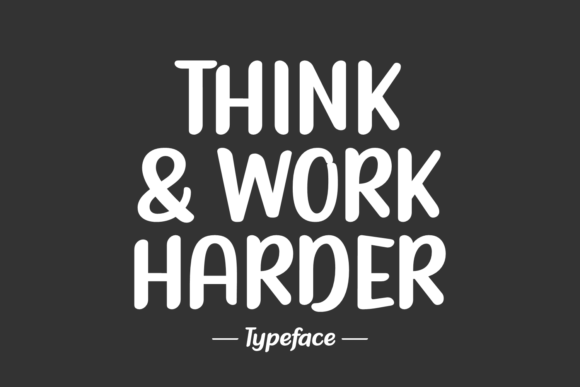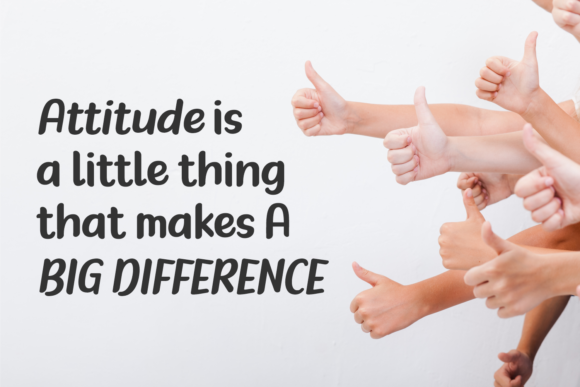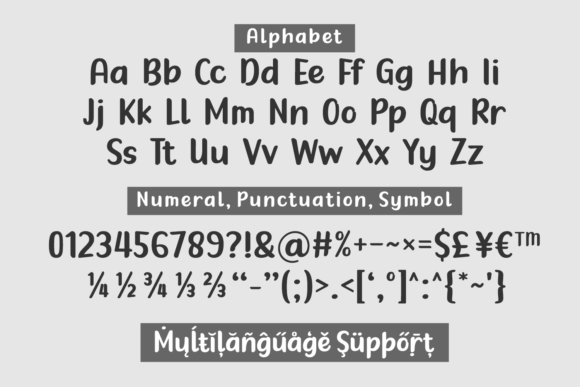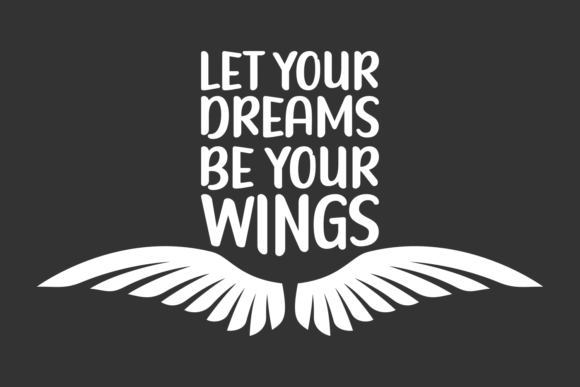
Think & Work Harder: A Display Slab Serif Font
Think & Work Harder is a display slab serif font that offers a simple yet impactful typeface. It’s an excellent choice for various design applications, including quotes, t-shirt designs, business cards, logos, branding, posters, and greeting cards.
Key Features of Think & Work Harder
- Display Design: Crafted for high-impact visual presentations.
- Slab Serif Structure: Features bold, rectangular serifs typical of slab serif fonts.
- Simple Aesthetic: Offers a clean and straightforward look.
- Versatile Application: Suitable for both print and digital media projects.
Ideal Uses for Think & Work Harder
Think & Work Harder’s unique characteristics make it particularly well-suited for:
- Inspirational quotes and motivational designs
- Eye-catching t-shirt graphics
- Professional business card layouts
- Distinctive logo designs
- Impactful branding materials
- Attention-grabbing posters
- Unique greeting card designs
When incorporating Think & Work Harder into your designs, consider these tips:
- Use for headlines or short phrases to maximize its display qualities.
- Experiment with different sizes to highlight the font’s distinctive features.
- Consider pairing with simpler sans-serif fonts for body text to create contrast.
- Utilize its simplicity to create clean, modern designs with a strong message.
Think & Work Harder is an excellent choice for designers looking to add a simple yet impactful display slab serif font to their typographic toolkit. Its ability to create bold, attention-grabbing designs makes it stand out in the world of typography. Whether you’re working on motivational posters, creating t-shirt designs, or developing branding materials that require a strong visual presence, Think & Work Harder offers the perfect blend of simplicity and impact.
Furthermore, Think & Work Harder’s clean design allows it to shine in various contexts. From minimalist designs to more elaborate layouts that need a touch of boldness, this font can elevate your projects. Its striking yet functional style works particularly well in designs that require a clear and powerful message.
In conclusion, Think & Work Harder is a font that truly captures the essence of motivation and impact in typography. Its ability to work well in both small-scale applications like business cards and larger formats like posters showcases its versatility. For those looking to add a touch of inspirational charm to their work, Think & Work Harder can enhance themed creations with its distinctive style. It’s the perfect choice for designers seeking to make a strong, stylish impact across a wide range of creative projects.